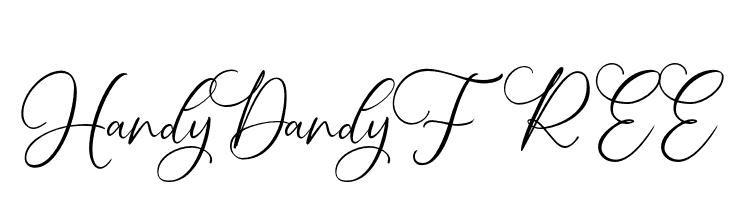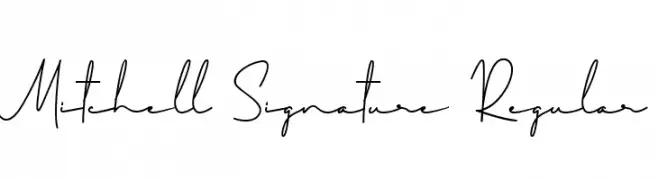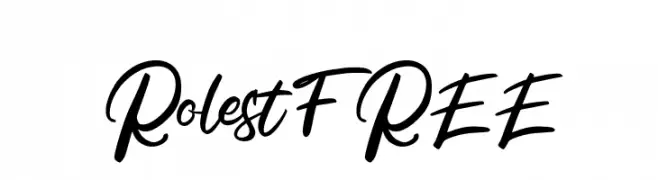
A casual, elegant handwritten font with fluid, connected strokes.
An elegant and flowing script font with a personal, handwritten style.
A bold, brush-style font with an artistic, hand-painted look.
A bold, brush script font with a dynamic and textured style.
A playful, handwritten font with flowing, cursive-like strokes.
A lively, expressive handwritten script with fluid, dynamic characters.
A bold, playful handwritten font with a casual and friendly style.
A flowing, elegant script font with sweeping swashes and varied stroke thickness.
A flowing, cursive script font with an elegant, signature-like style.
A fluid and elegant handwritten script font.